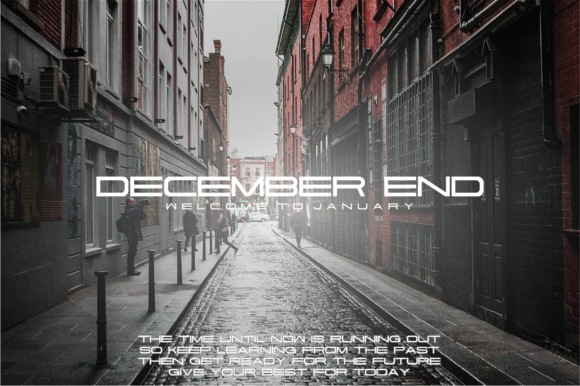
Unleash your creativity with December End, the font that effortlessly blends simplicity and modernity, making it the perfect choice for any design project. Its clean lines and minimalistic style make it a versatile font that can adapt to any aesthetic, whether you're designing a sleek logo, a captivating website, or any form of digital media.
With December End, the possibilities are endless. Experience the joy of creating captivating designs that resonate with your audience. Let your imagination soar as you craft visually stunning projects that leave a lasting impression.
As a sans serif font, December End exudes a timeless elegance that complements both classic and contemporary designs. Its crisp and defined letterforms ensure excellent readability, even in smaller sizes, making it ideal for UI design, where clarity and functionality are paramount.
Whether you're a seasoned designer or just starting, December End is the perfect font to elevate your projects. Its user-friendly nature makes it easy to incorporate into your designs, allowing you to focus on unleashing your creativity.
So, dive into the world of December End and discover the endless possibilities it offers. Let this font ignite your passion for design and create projects that captivate and inspire.